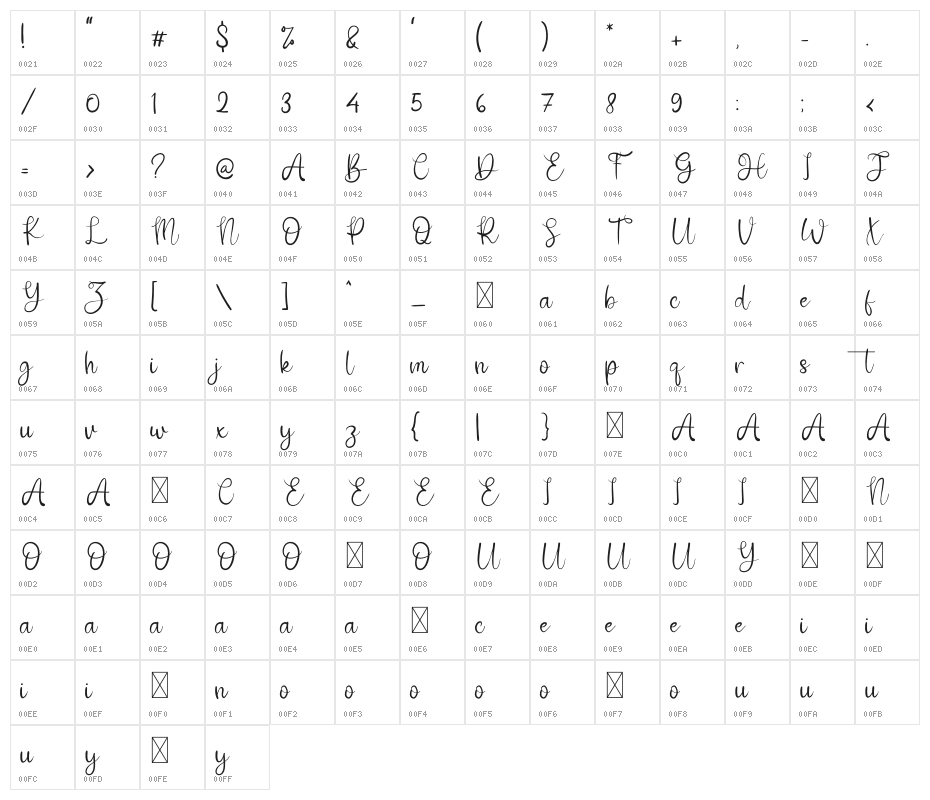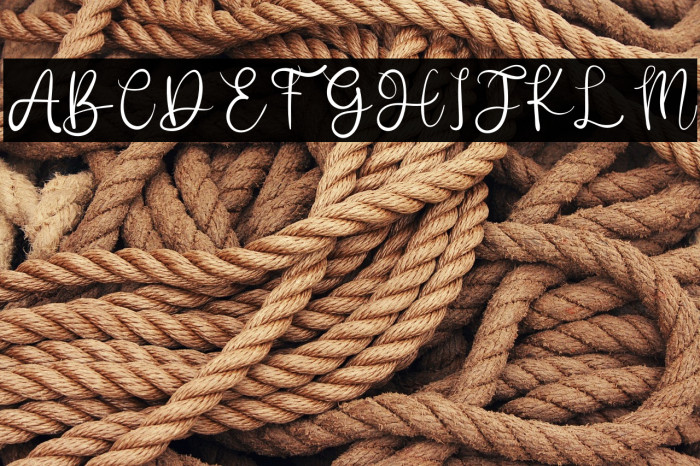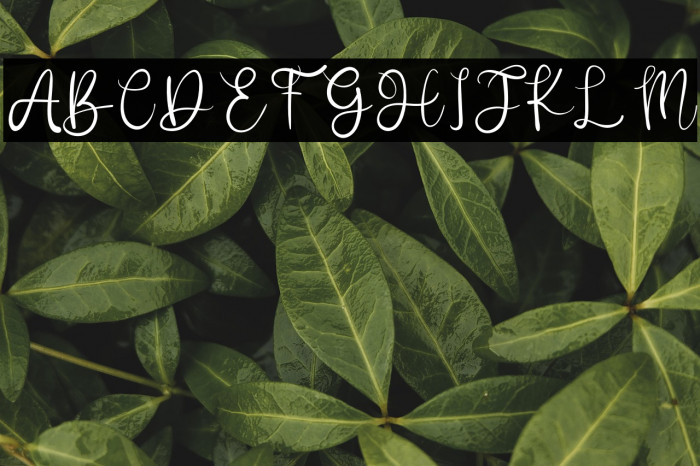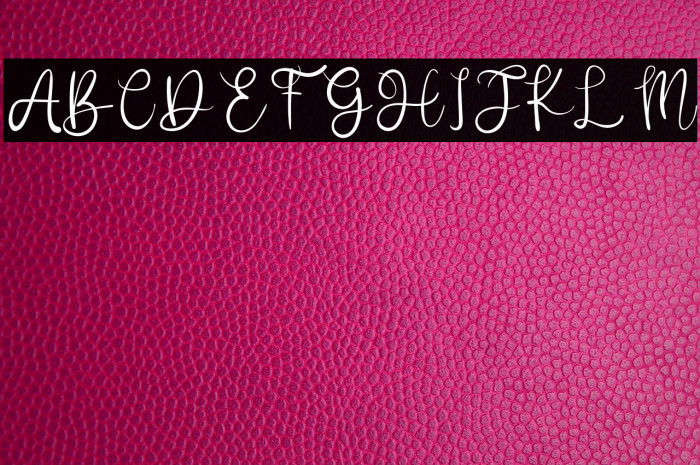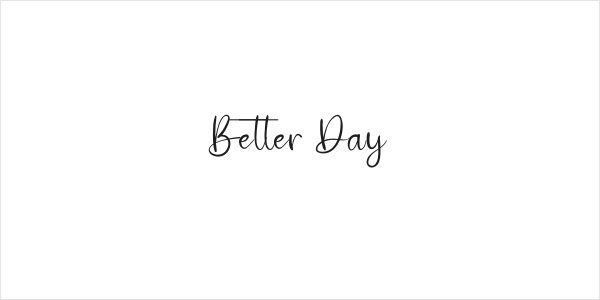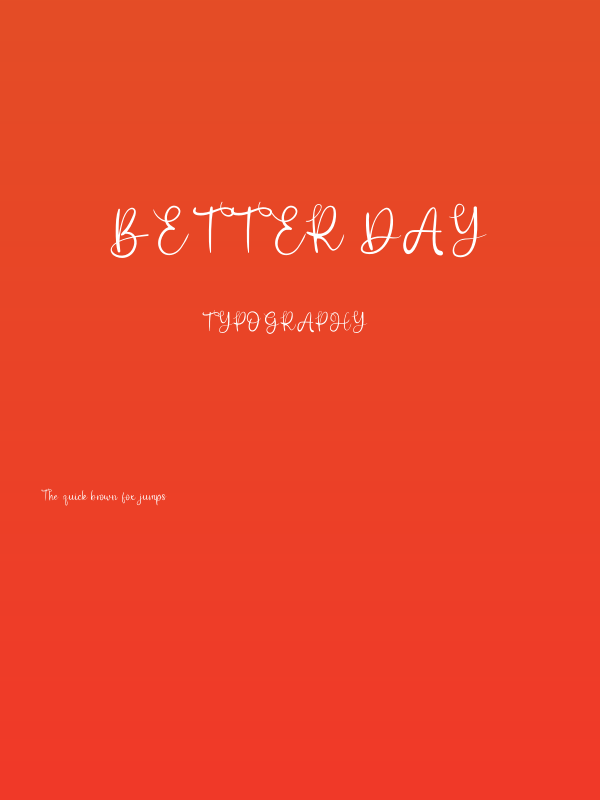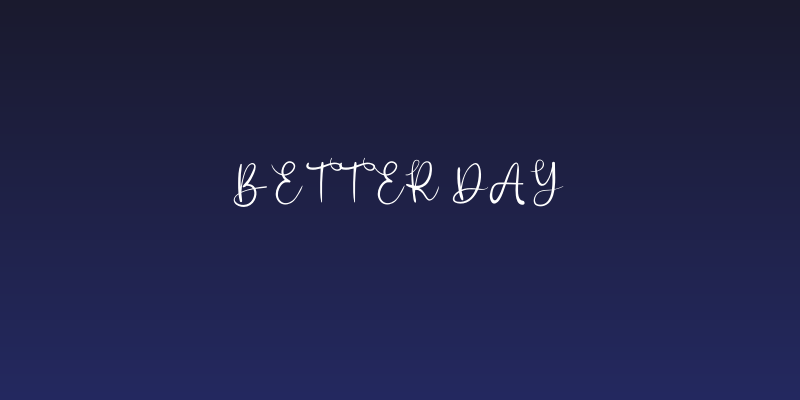
Better Day Font
Better Day Description
This font features a playful and elegant script style with a handwritten appearance. The uppercase letters are characterized by smooth, flowing lines and a slight slant, giving them a dynamic and lively feel. The lowercase letters maintain a consistent style, with rounded forms and a casual, friendly look. The numerals are clear and legible, matching the overall aesthetic of the letters. Special characters are designed with the same fluidity and charm, making them suitable for creative and expressive text. The font's overall style is both modern and whimsical, making it versatile for various design projects.
| Overall Style | Modern, Whimsical |
| Proposed Projects | Ideal for wedding invitations, greeting cards, branding, and social media graphics. |